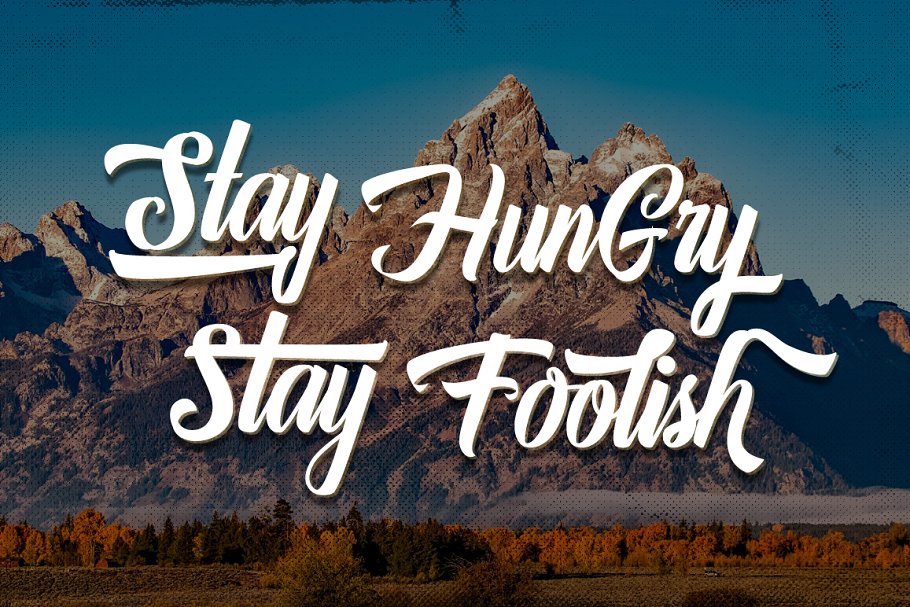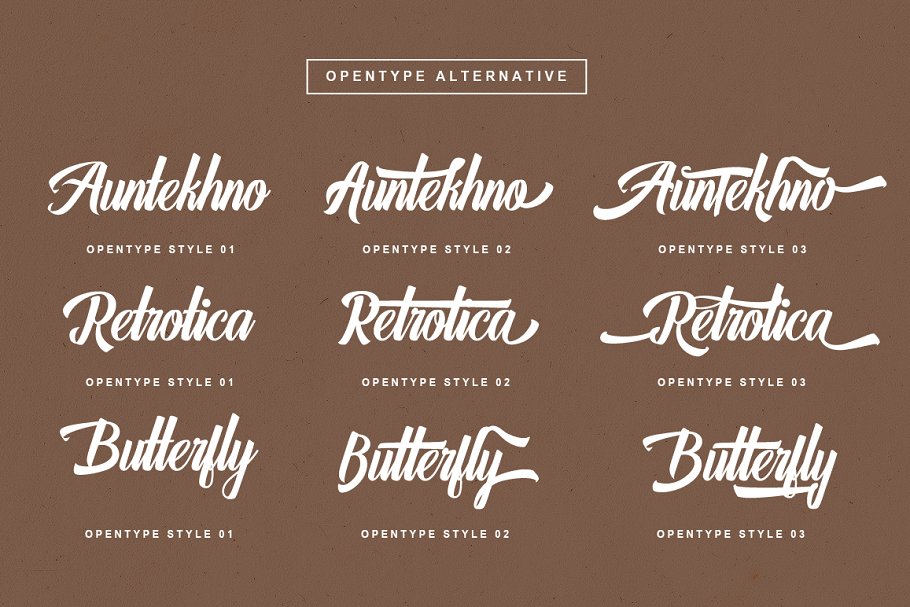
Auntekhno Brush Font – Free Demo
Thank you for looking this font. This font is crafted carefully in every its single scratch, created to look as close to a natural brush script so that it can create the perfect combination on each glyph. Introducing Auntekhno Font! Auntekhno Script is Vintage Script Brush Font with Hand lettering Brush Style, so much opentype feature include of the font. Suitable for design, element design, wedding, event, t-shirt, logo, badges, sticker, and awesome work, etc…